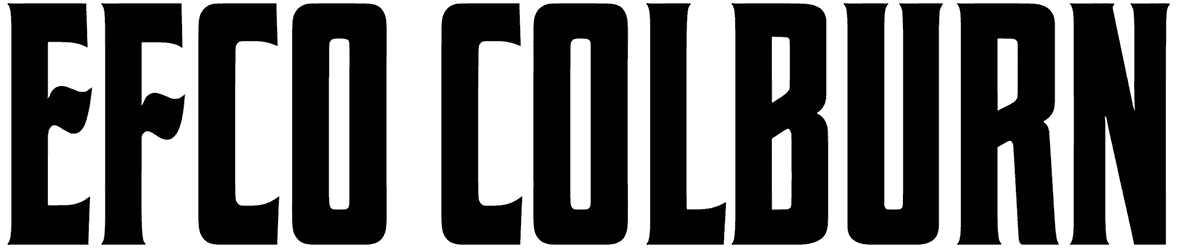
Mightiest Font
Borrow the hot aura of Mightiest for your logos and see where it takes you. We have so many different sans-serif fonts to offer you on Resource Boy, and yet, Mightiest somehow manages to set itself apart from them all.
It’s all thanks to its confident tone and stylish look that Mightiest is so popular. As soon as a branding design comes along, this modern font makes its way to your business cards for wedding planners, interior designers, jewelry makers, etc.
Designed by: UI Creative